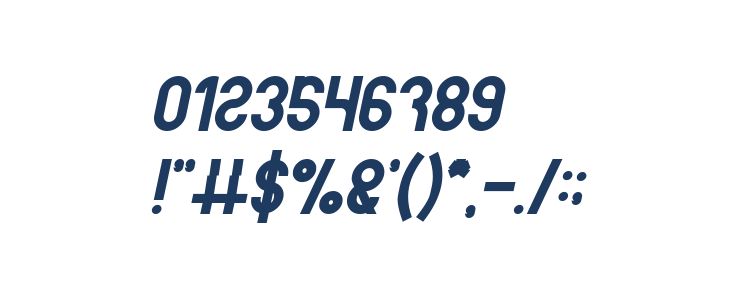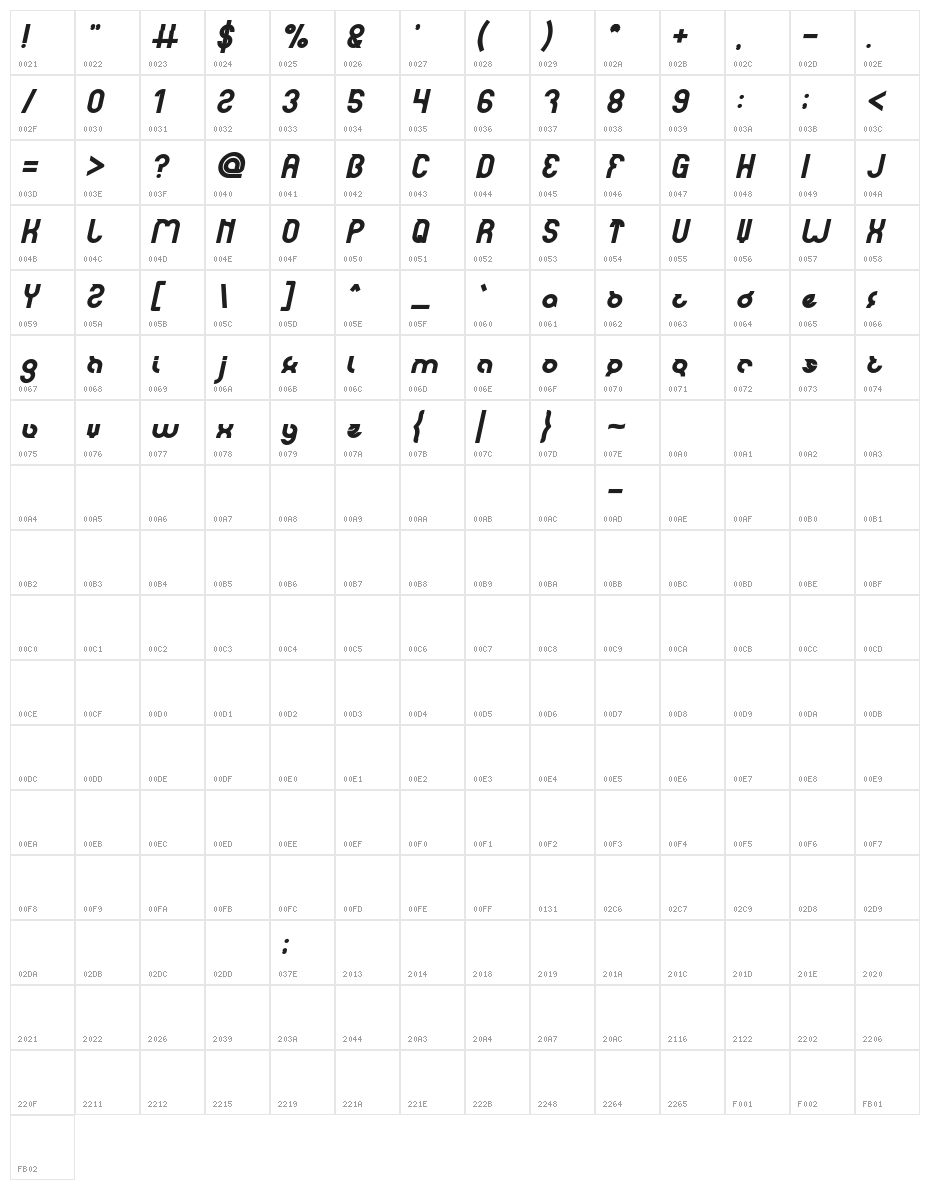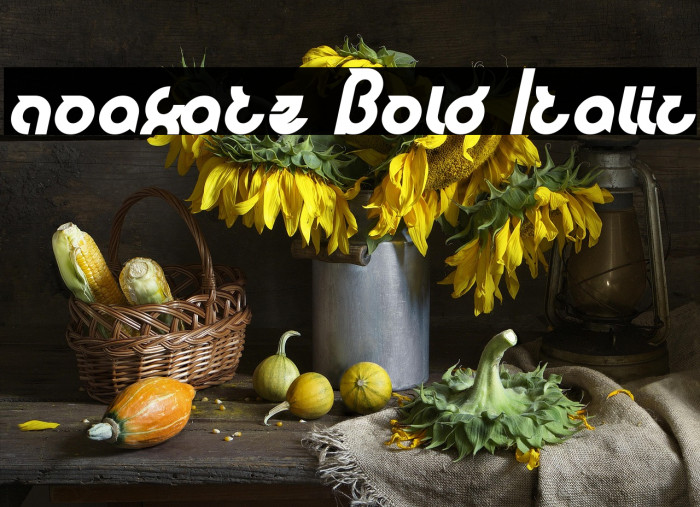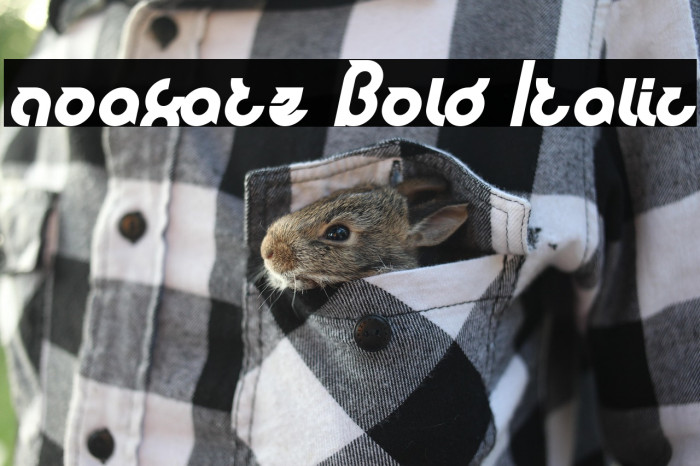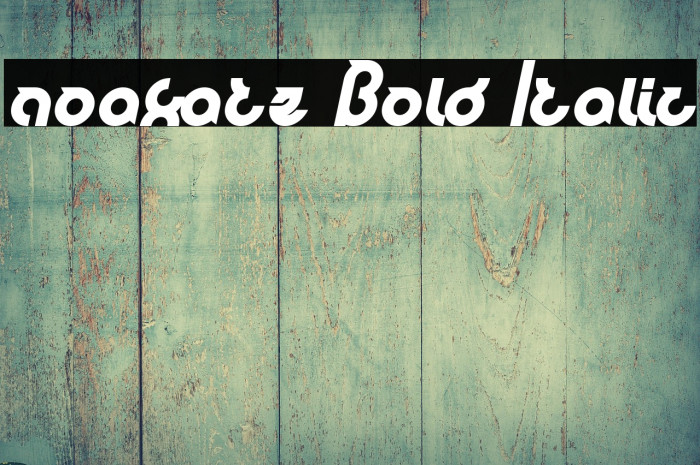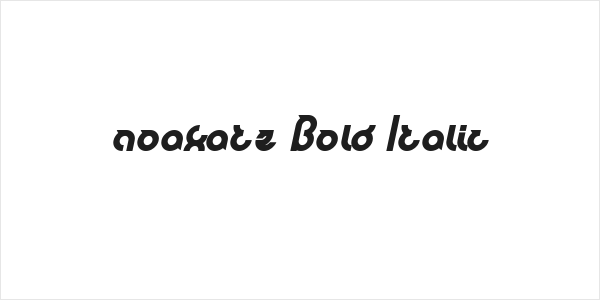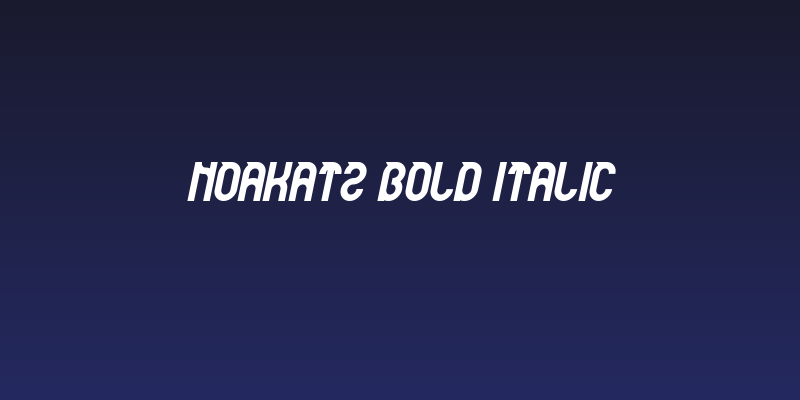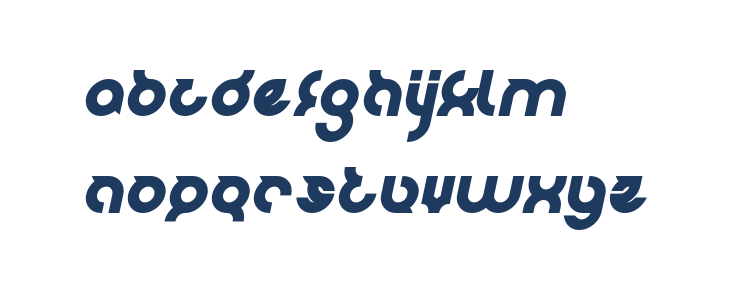
noakatz Bold Italic Font
noakatz Bold Italic Description
This font exhibits a bold and italicized style, characterized by its strong, dynamic presence. The letters are slightly slanted, giving a sense of motion and energy. The strokes are thick and consistent, providing a robust appearance. The uppercase letters have a unique flair, with some characters featuring distinctive curves and angles that add to the font's personality. The lowercase letters maintain the boldness, with rounded edges that soften the overall look. Numbers and special characters are designed to match the bold and italicized theme, ensuring uniformity across all elements.
| Proposed Projects | Ideal for branding, poster design, and headlines where a strong, energetic presence is needed. |